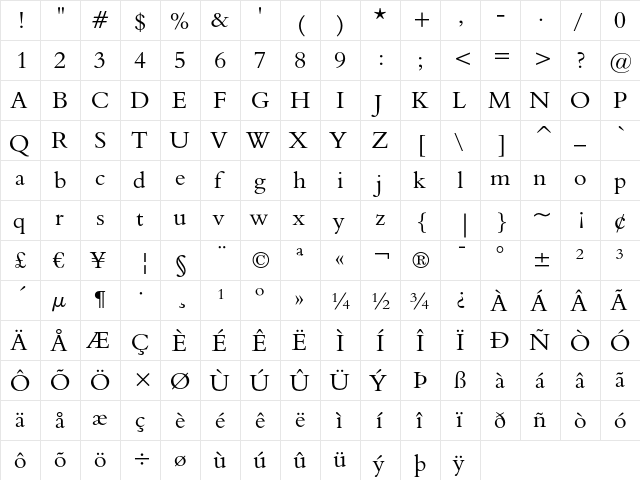
Aldine 401 Regular
Design Context for Aldine 401 Typeface
Aldine 401 takes a measured approach to typography — its balanced proportions and neutral character make it a reliable workhorse for both digital and print work.